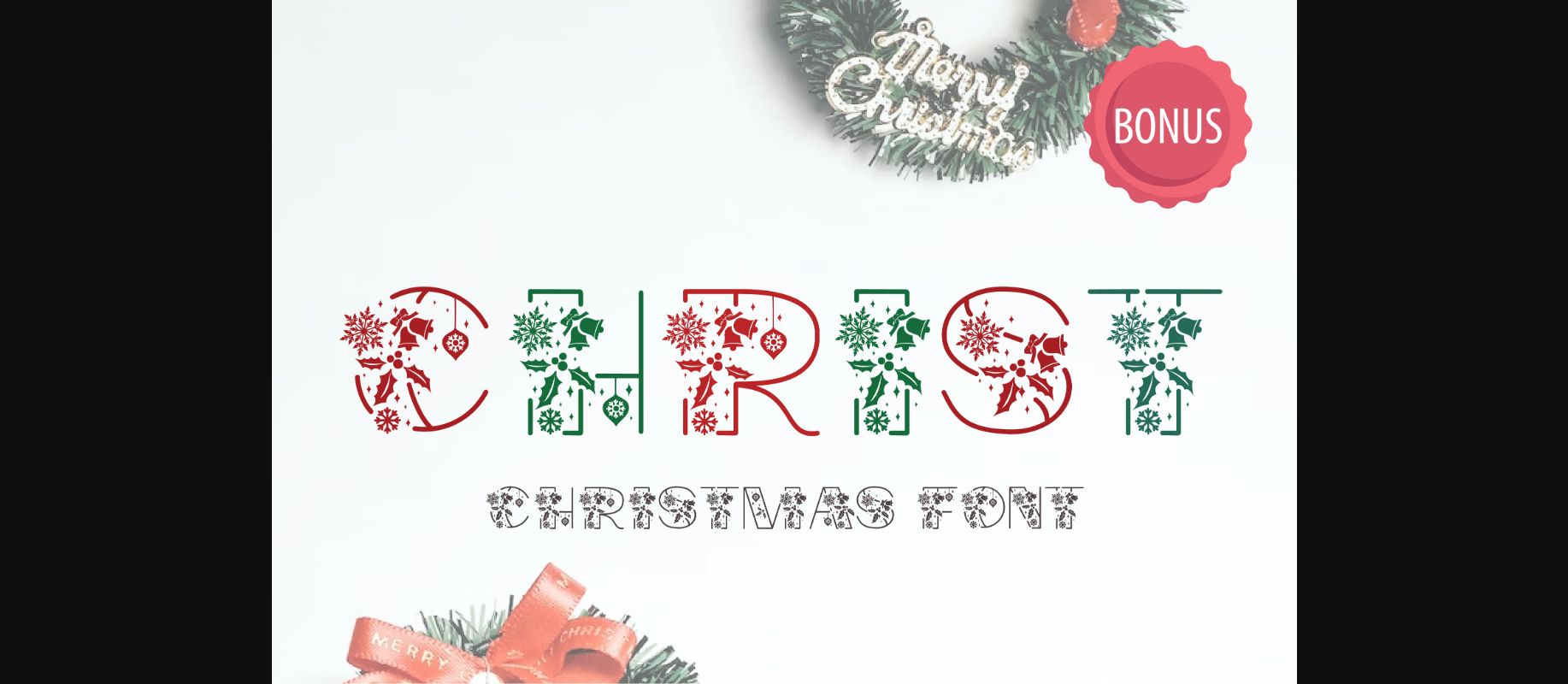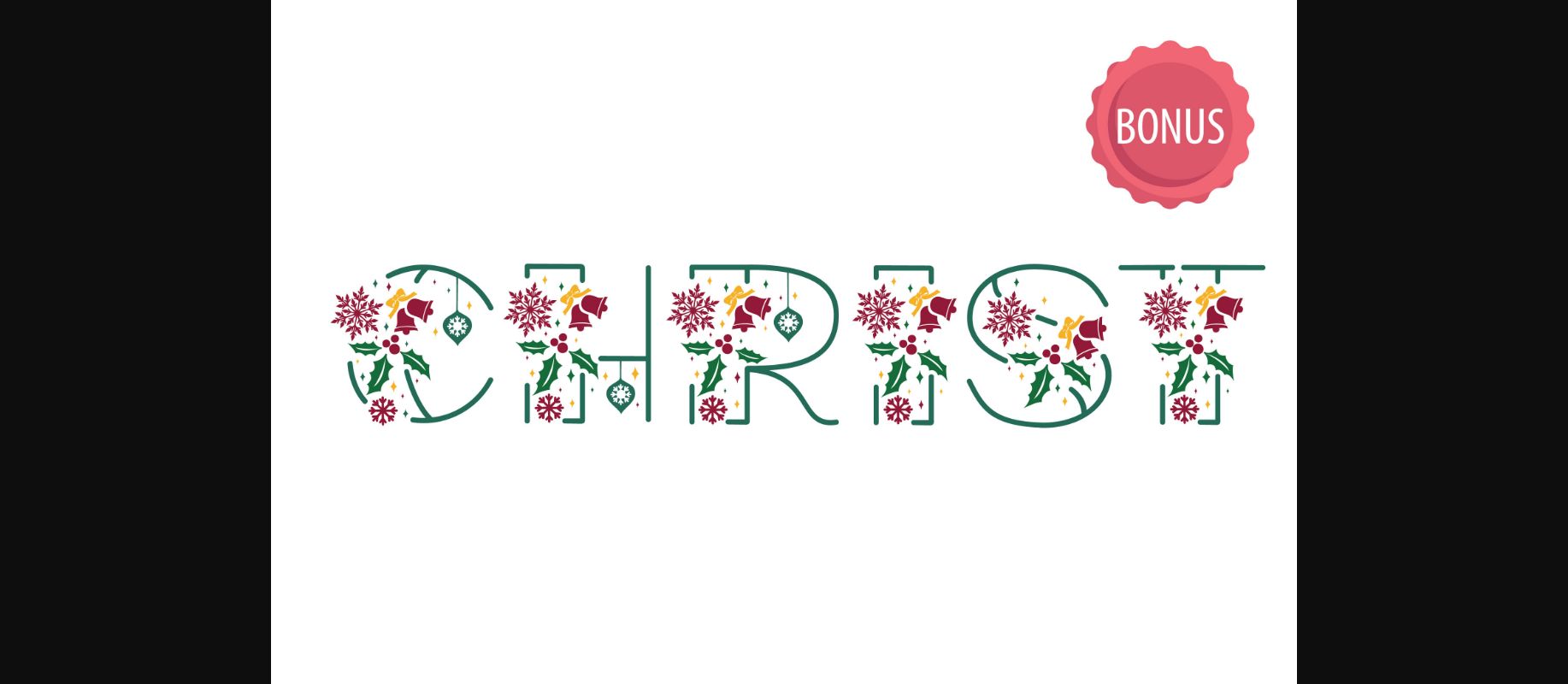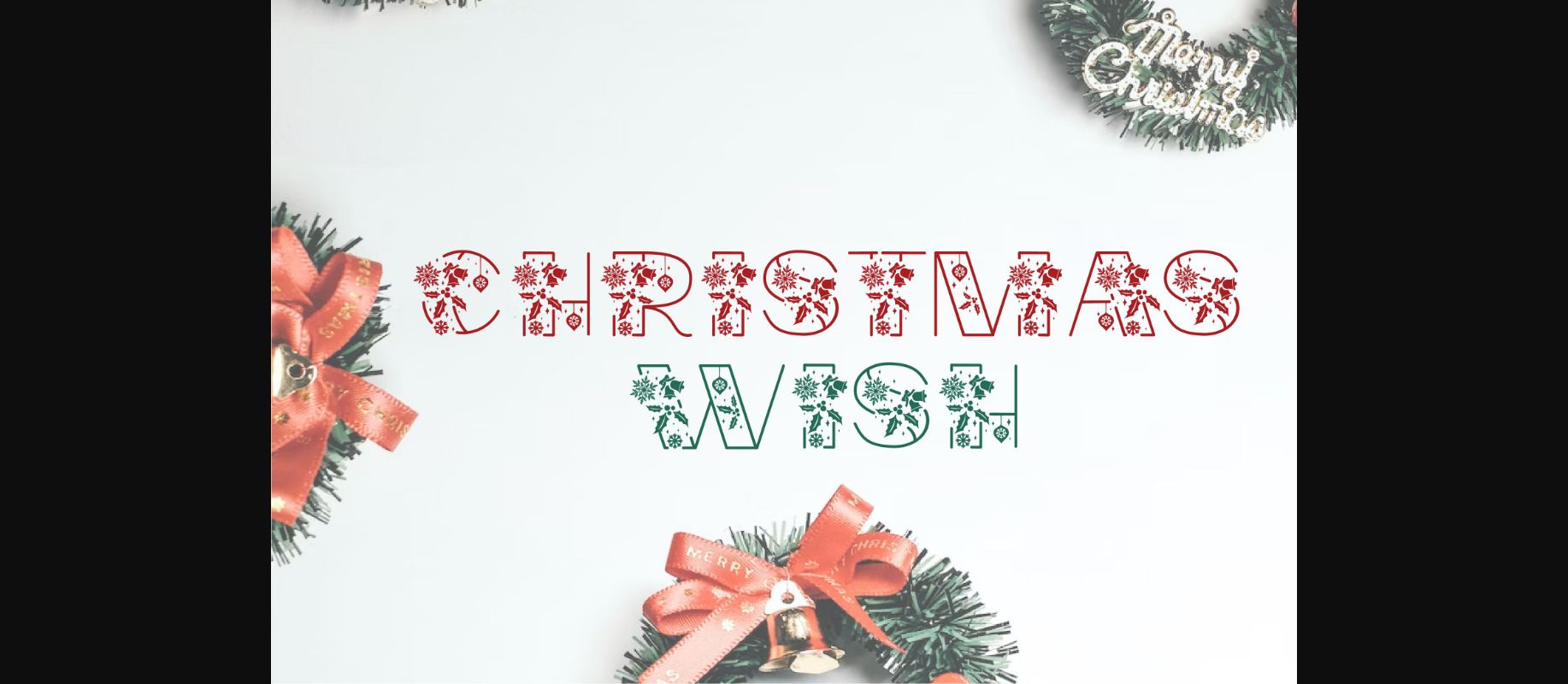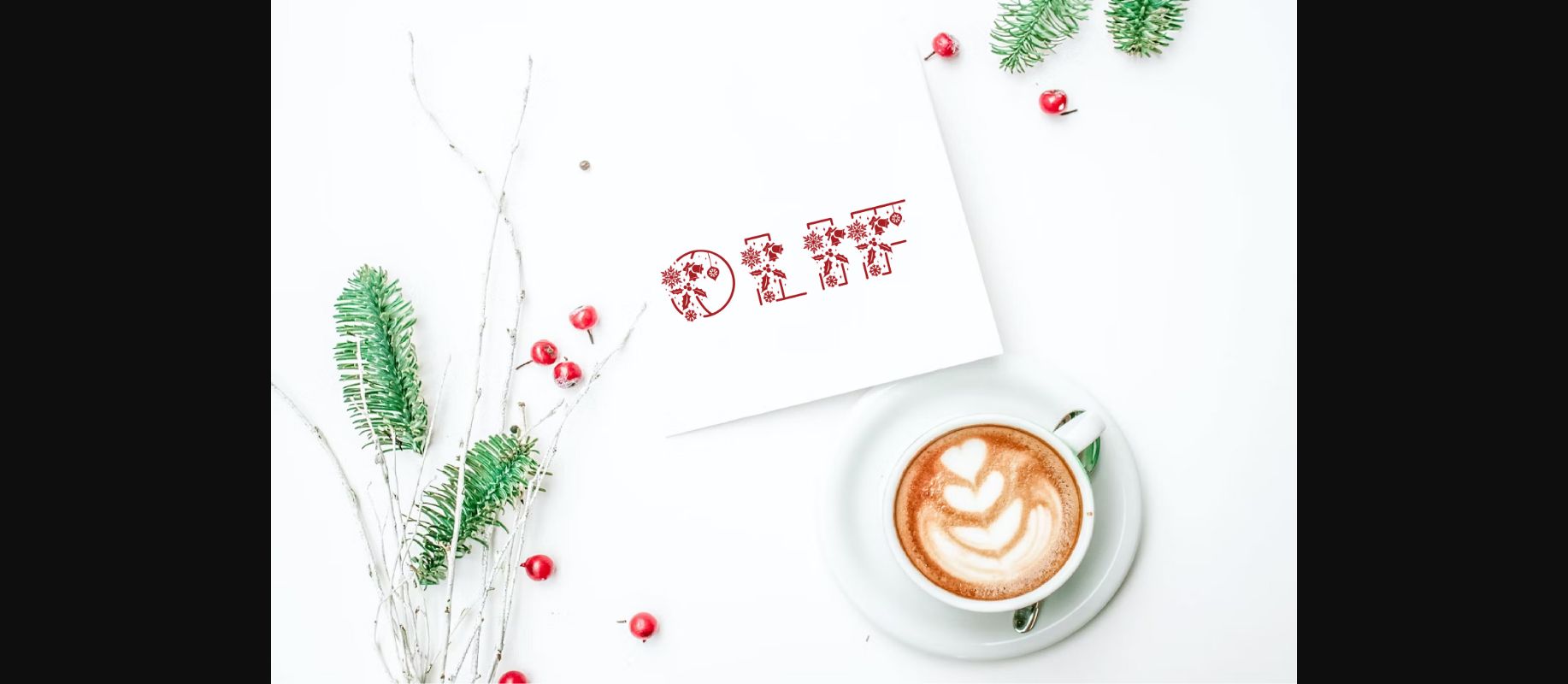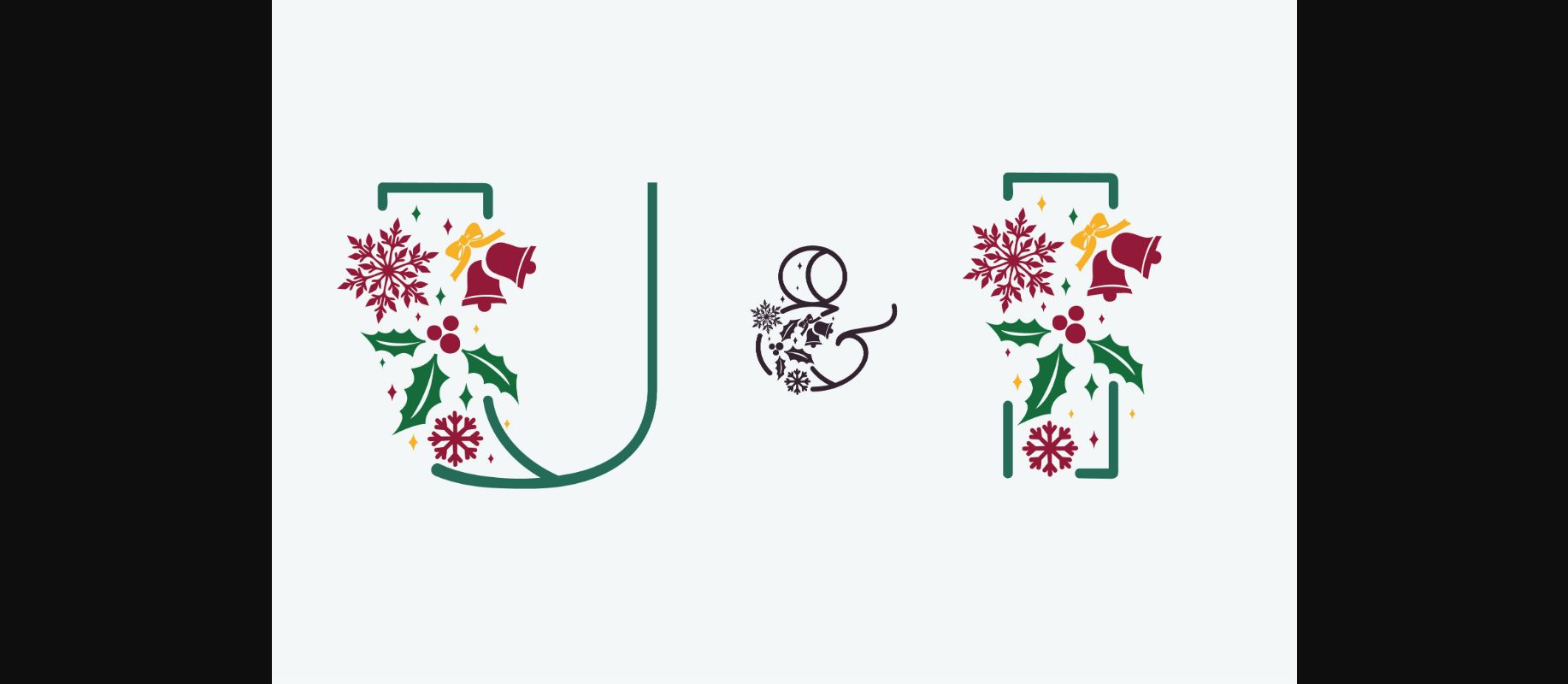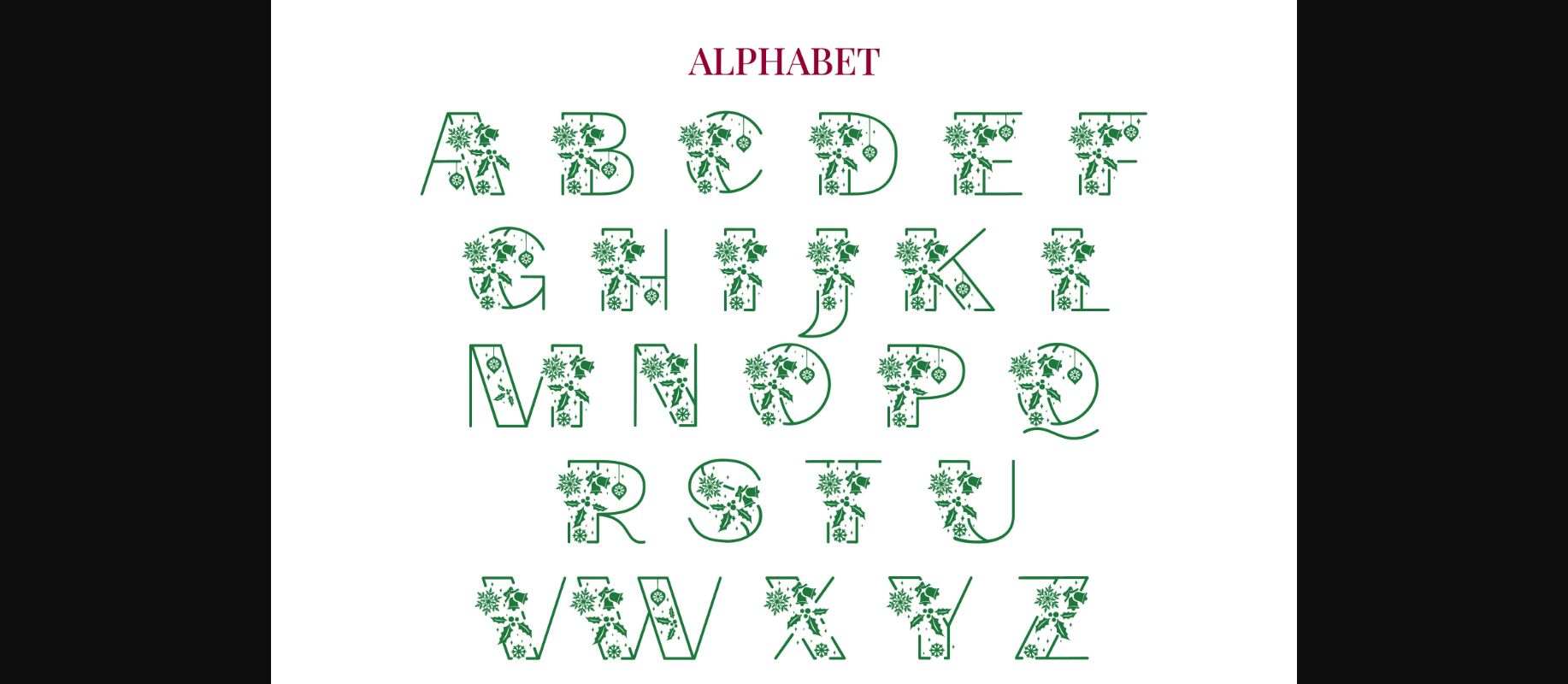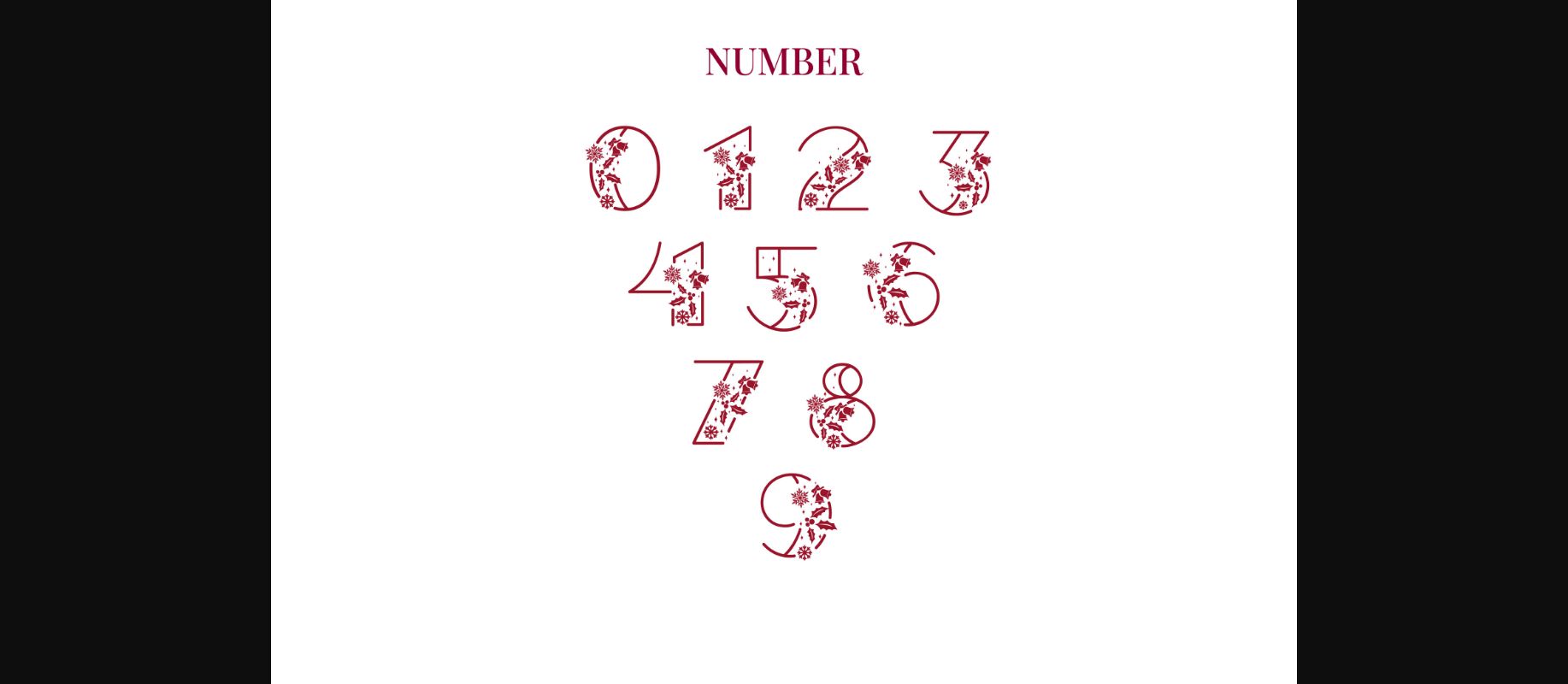
Christmas Joy Font
About Christmas Joy Font
Christmas joy is a unique and festive decorative font. It will look amazing on all your Christmas-themed designs, shirts, crafts, and cards and will instantly enhance your projects!